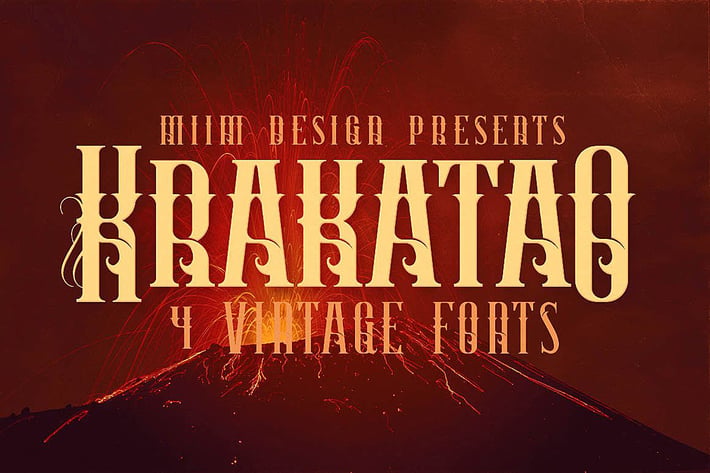
Krakatao - Vintage Font
Creative, vintage & grunge font for your new projects. Great for retro or vintage style projects! 4 font files (otf & ttf) - regular & grunge, ornament & ornament grunge